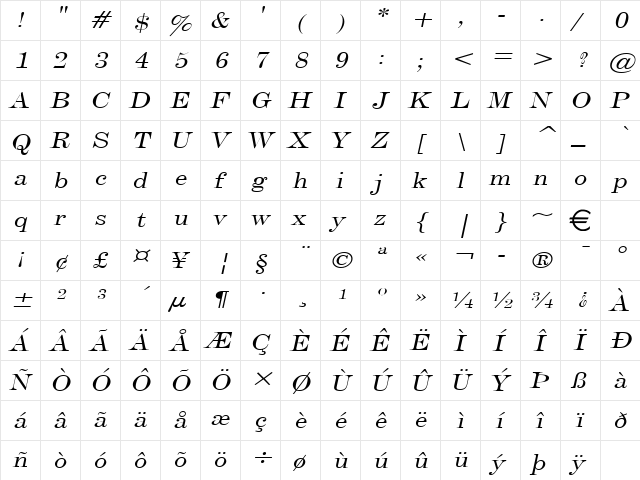
DevineWide Italic
Design Context for DevineWide Typeface
DevineWide offers clean, dependable letterforms without strong stylistic allegiance, making it a practical choice for designers who need flexibility. The slanted form adds forward momentum and visual energy.
Pro Tip: Try DevineWide for annotation and caption copy alongside an upright companion — the contrast in angle creates a dynamic but ordered typographic system.